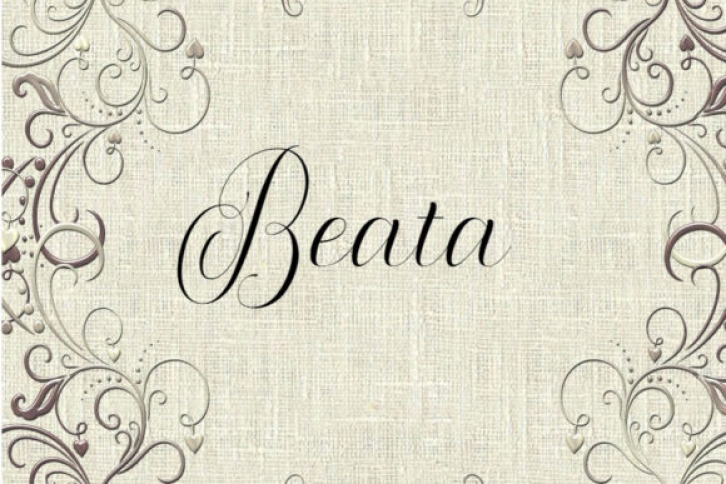
Beata is a delicate, elegant and flowing handwritten font. It has beautiful and well balanced characters and as a result, it matches a wide pool of designs. Add it to your most creative ideas and notice how it makes them come alive!